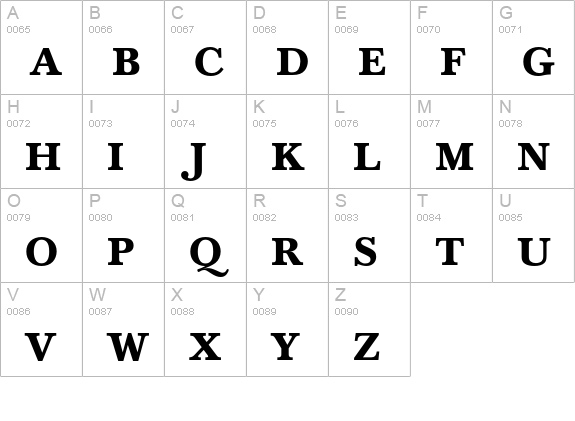
Baskerville T Bold is a strong, high-contrast variant in the Baskerville typeface family \xE2\x80\x94 well suited to headlines, attention-grabbing titles, and strong calls-to-action.
Baskerville T Bold font is a timeless and elegant typeface that exudes sophistication and class. With its strong and bold design, this font is perfect for making a statement in any design project. Its sleek serifs and clean lines make it easily readable, while still adding a touch of refinement. And the best part? Baskerville T Bold font is available for free download at FontsMarket.com. This means you can elevate your designs with this beautiful typeface without any cost. Whether you're working on a branding project, editorial design, or any other creative endeavor, Baskerville T Bold font will add a touch of professionalism and style to your work. Download it now and start creating stunning designs with this versatile and classic font.